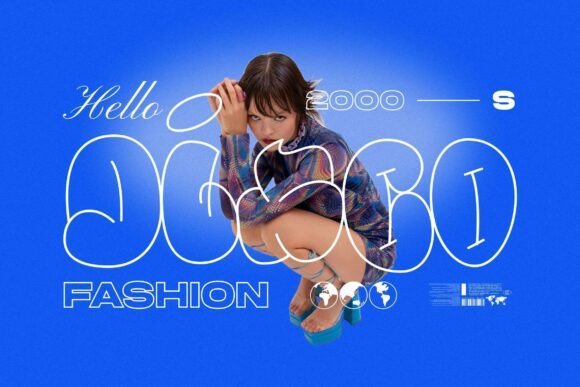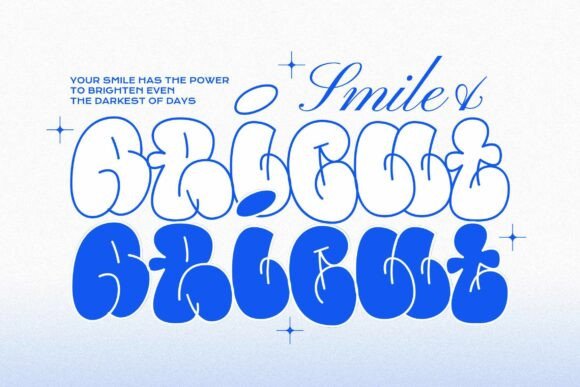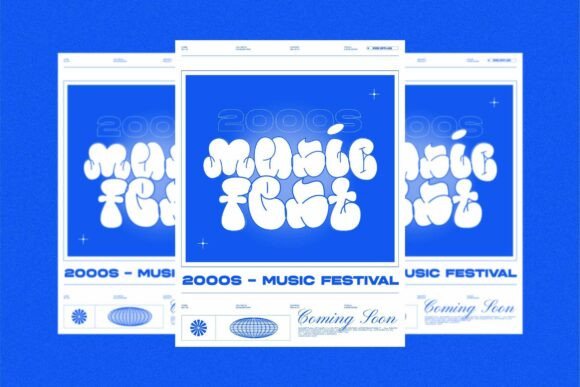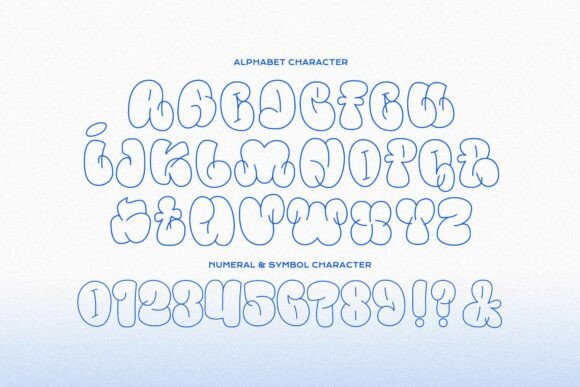
Introduction to Novel Celon Font
Have you ever been stuck brainstorming a creative project, searching for that one special element to make it pop? You know, that elusive spark that turns a decent idea into a showstopper. For designers, this moment is all too familiar, and the right font can be the game-changer.
Enter the Novel Celon Font, a modern graffiti display font that’s sure to capture attention. With its ultra-bold, rounded letterforms and playful bubble style, this font is the perfect addition to any youthful branding or creative startup. Its unique combination of a puffy, balloon-like vibe and quirky, handwritten twist makes it an instant head-turner.
Key Features of Novel Celon Font
- High-quality design resource suitable for creative projects requiring a unique touch
- Features a transparent background, allowing for seamless integration into designs with complex backgrounds
- Unique characteristics include a modern, elegant aesthetic and a wide range of stylistic options
Honest Review: Novel Celon Font
I recently had the chance to work with the Novel Celon Font, and I must say it’s been a great addition to my design toolkit. One of the standout features of this font is its high quality and versatility, making it perfect for a wide range of creative projects.
Here are some of the things that work well with the Novel Celon Font:
- High-quality design: The Novel Celon Font is designed with precision and care, resulting in a beautiful and professional-looking result.
- Transparent background: This feature allows for seamless integration with other design elements, giving you more creative control.
- Limited character set: The Novel Celon Font may not include all the characters you need for your project.
- Not suitable for small text: Due to its high-quality design, the font may not be ideal for small text sizes.
- May require adjustments: Depending on the project, you may need to make some adjustments to the font to get the desired result.
Overall, I’m impressed with the Novel Celon Font. While it may have some limitations, its high-quality design and versatility make it a valuable resource for designers working on creative projects. With a free download available, it’s definitely worth checking out.
Tips for Getting the Most Out of Novel Celon Font
Use the Novel Celon Font in conjunction with other design resources to create a cohesive and high-quality design. Experiment with different font sizes and styles to add depth and visual interest to your project. Consider using the font in a creative project, such as a logo or branding material.
The Novel Celon Font is ideal for use in a variety of creative projects, including logos, branding materials, and marketing materials. It is also a great choice for use in presentations, documents, and other business materials. With its high quality and design flexibility, the Novel Celon Font is a valuable design resource for anyone looking to create professional-looking designs.